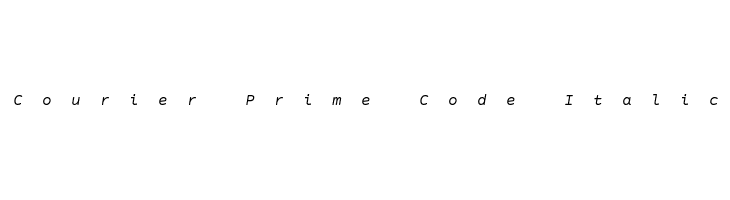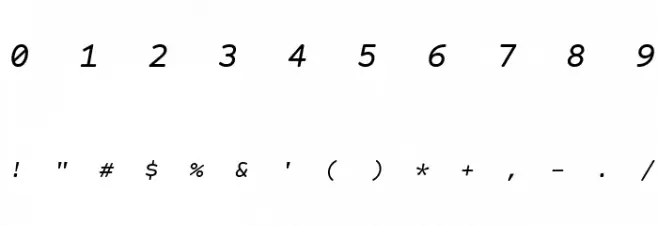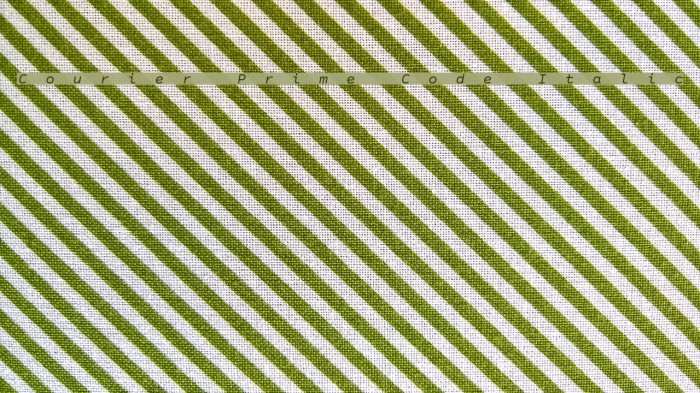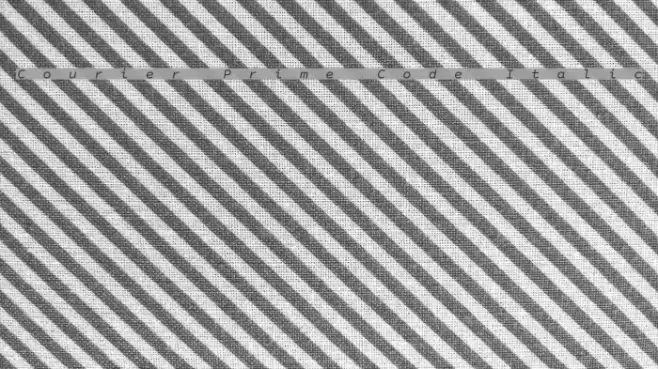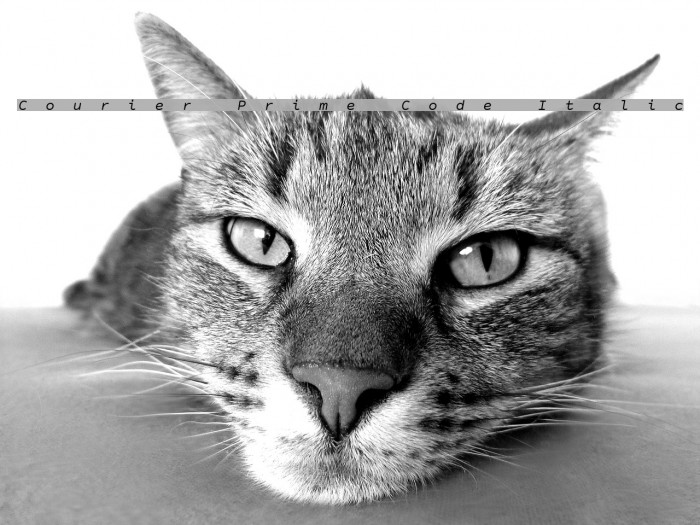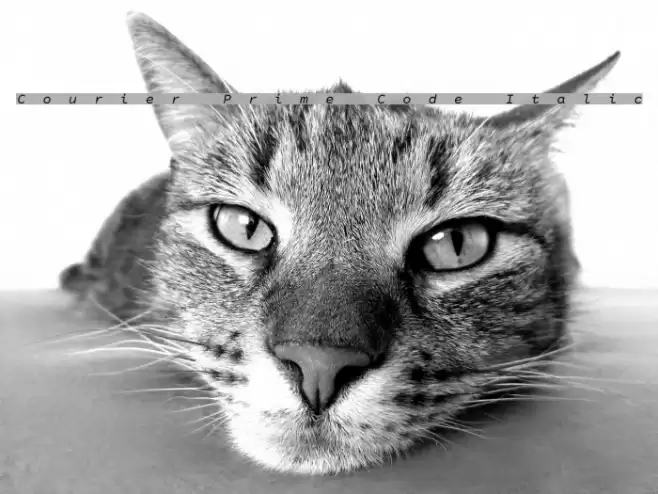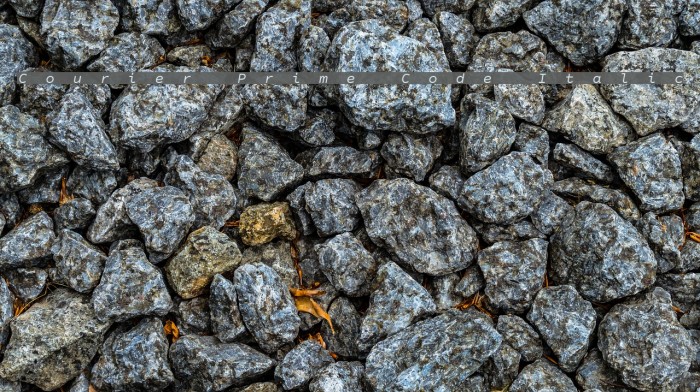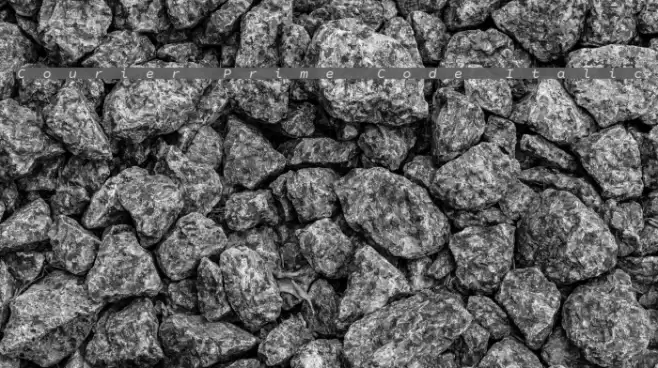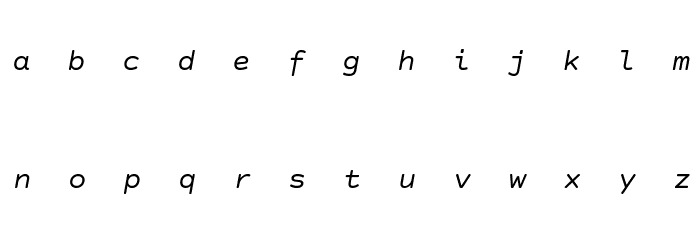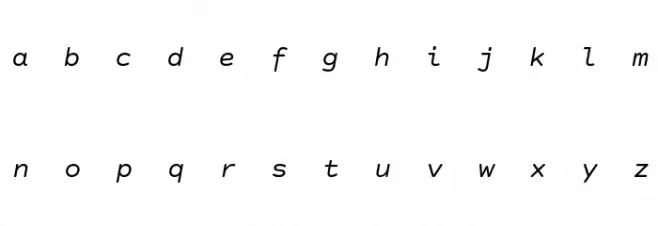
Courier Prime Code Italic Font
Courier Prime Code Italic Description
This typeface is a monospaced font with a clean and modern aesthetic. Each character is evenly spaced, providing a uniform and structured appearance. The italic style adds a subtle slant to the characters, giving them a dynamic and fluid look while maintaining readability. The font features consistent stroke widths, contributing to its low contrast and making it suitable for coding environments where clarity and precision are essential. The design is straightforward, with minimal decorative elements, ensuring that it remains functional and easy to read across various applications.
A monospaced, italic font with a clean, modern design ideal for coding from Uncategorized fonts.
• Proposed Projects: Ideal for coding projects, technical documentation, and any application requiring monospaced text for alignment and clarity.
• Contrast: Low
• Overall Style: Modern
• Use Case: Coding, Technical documentation